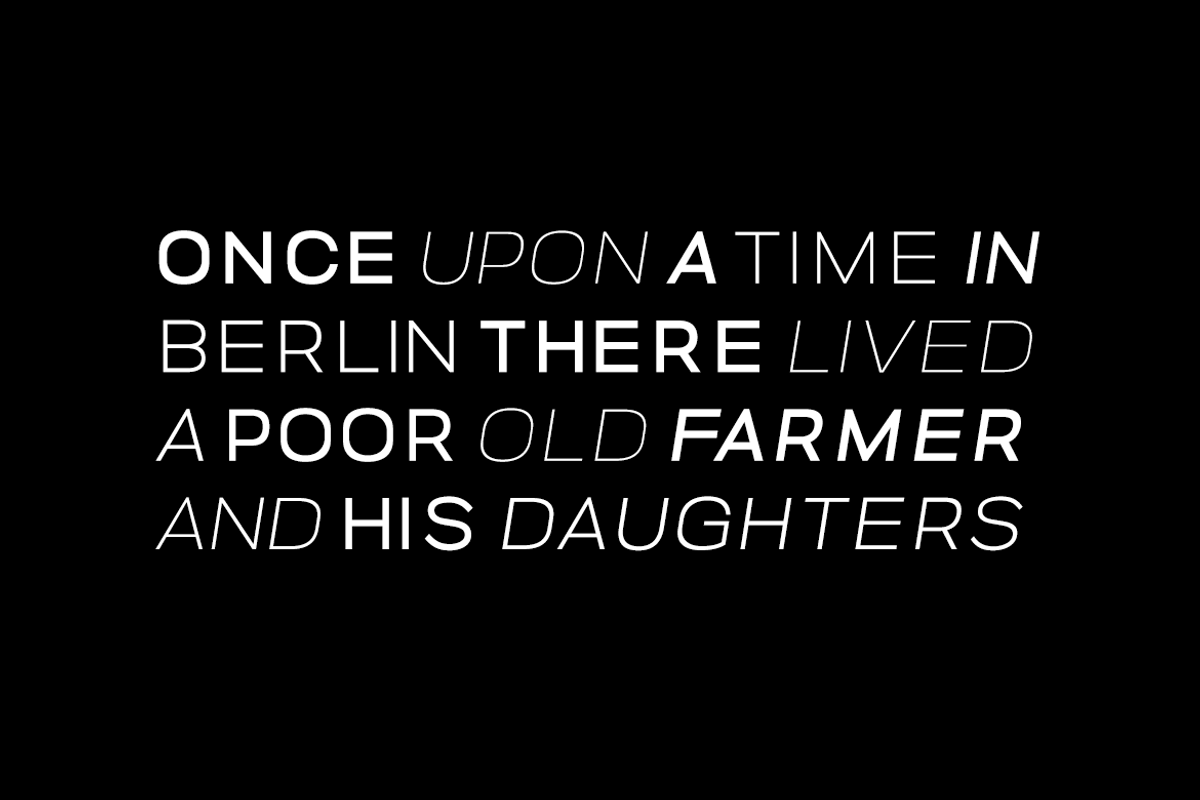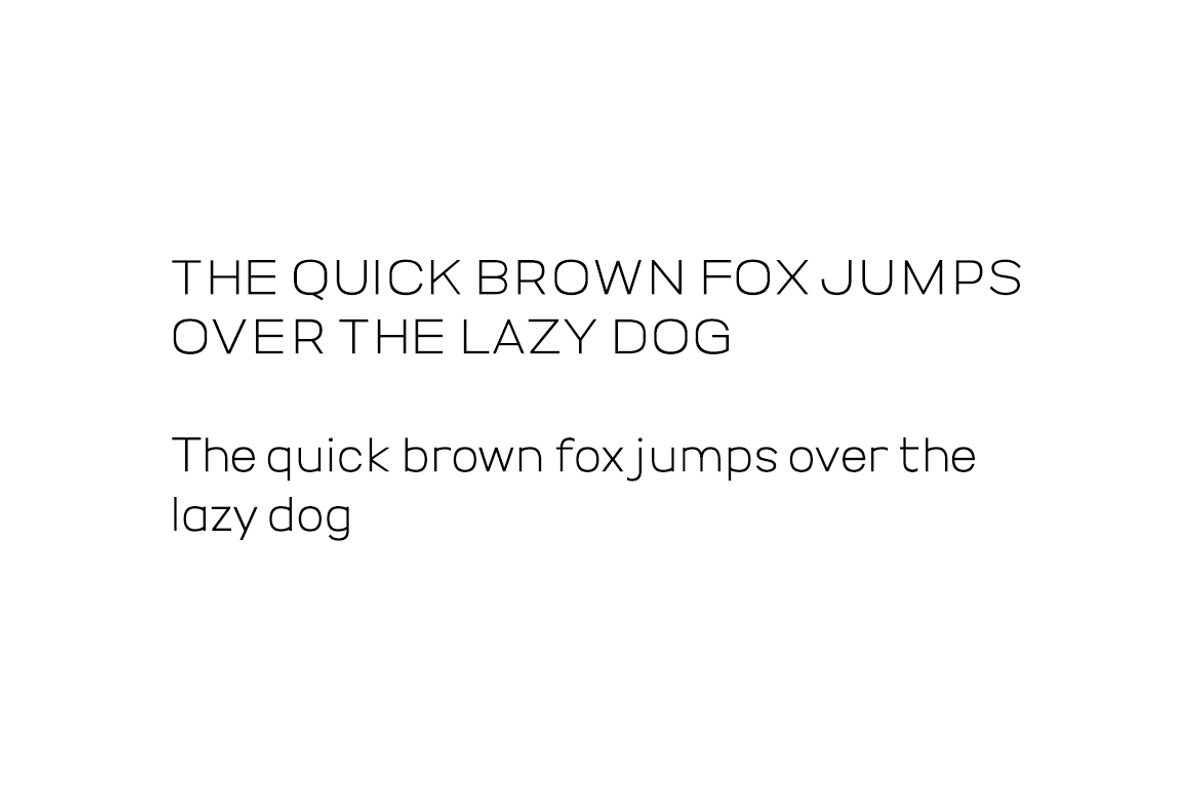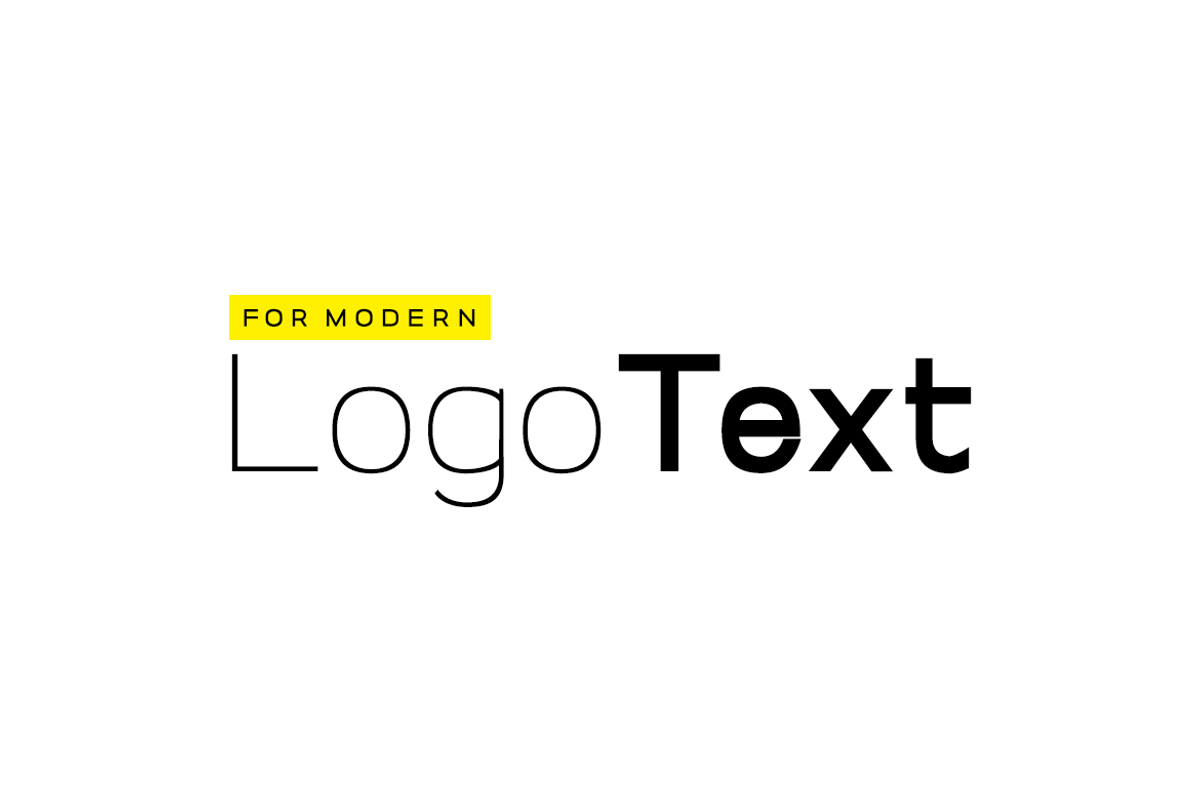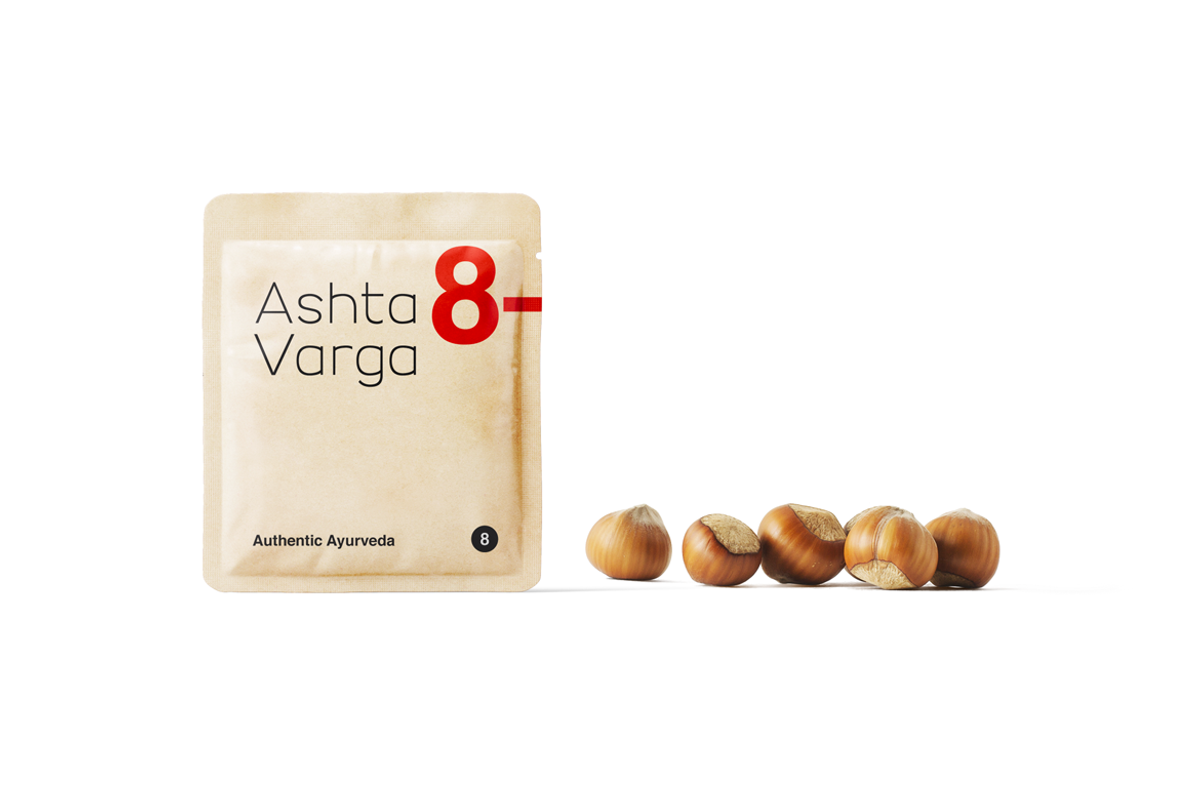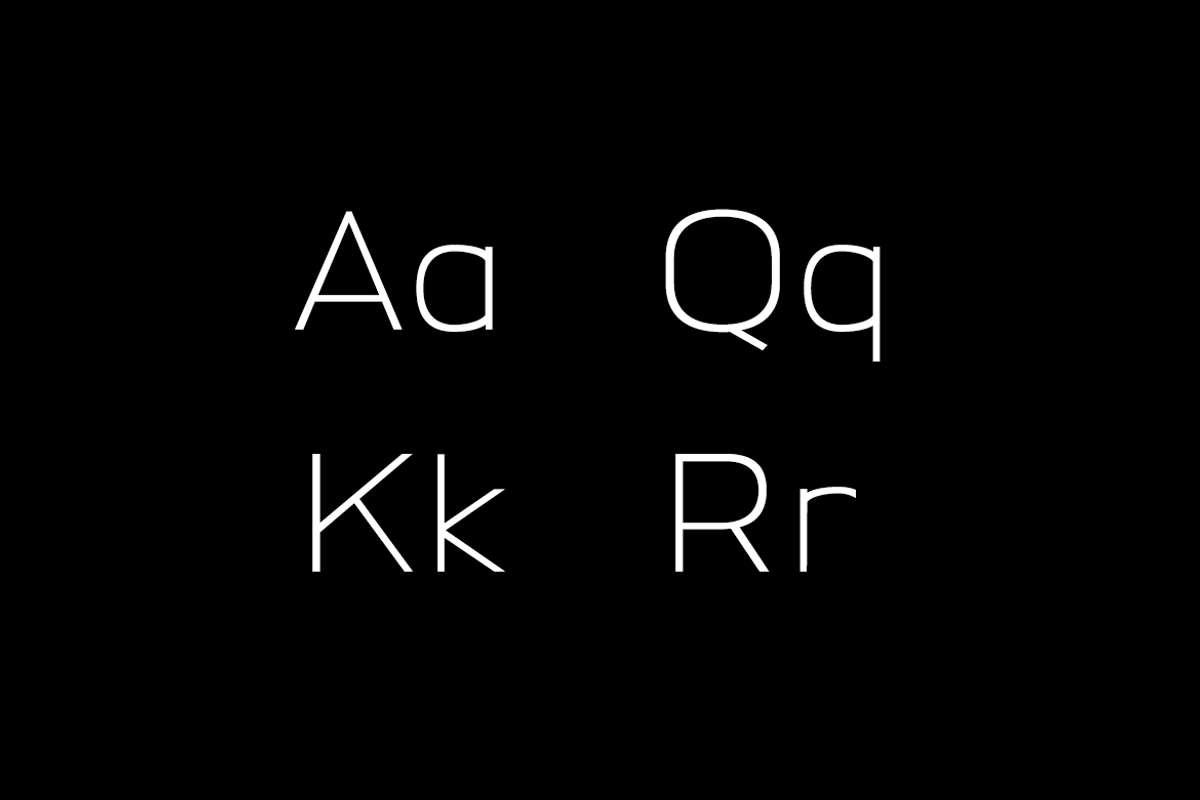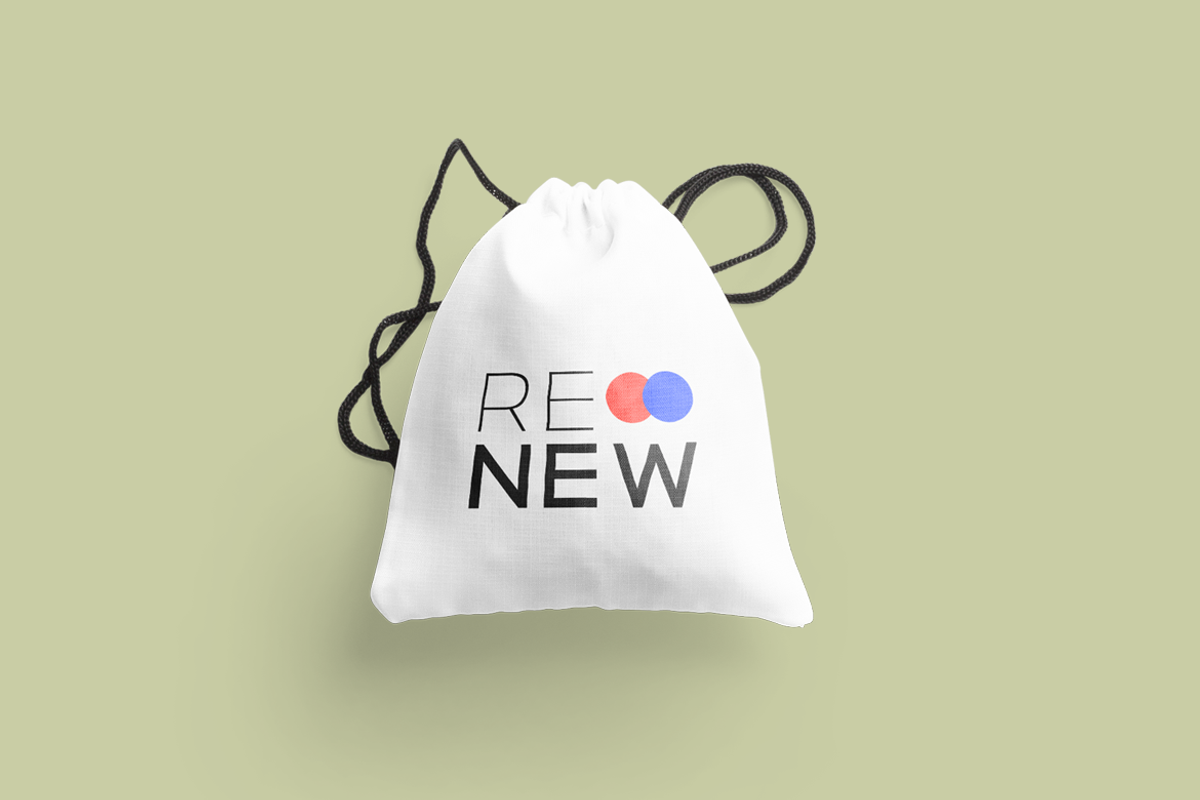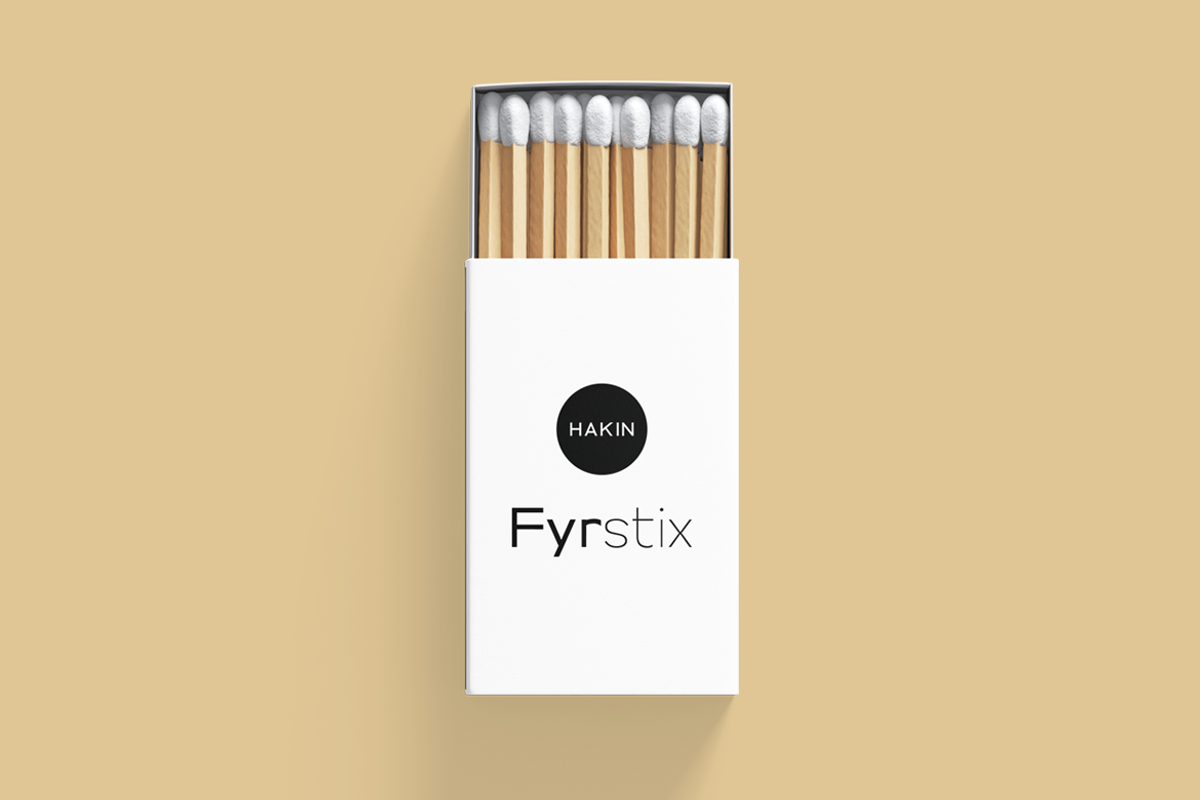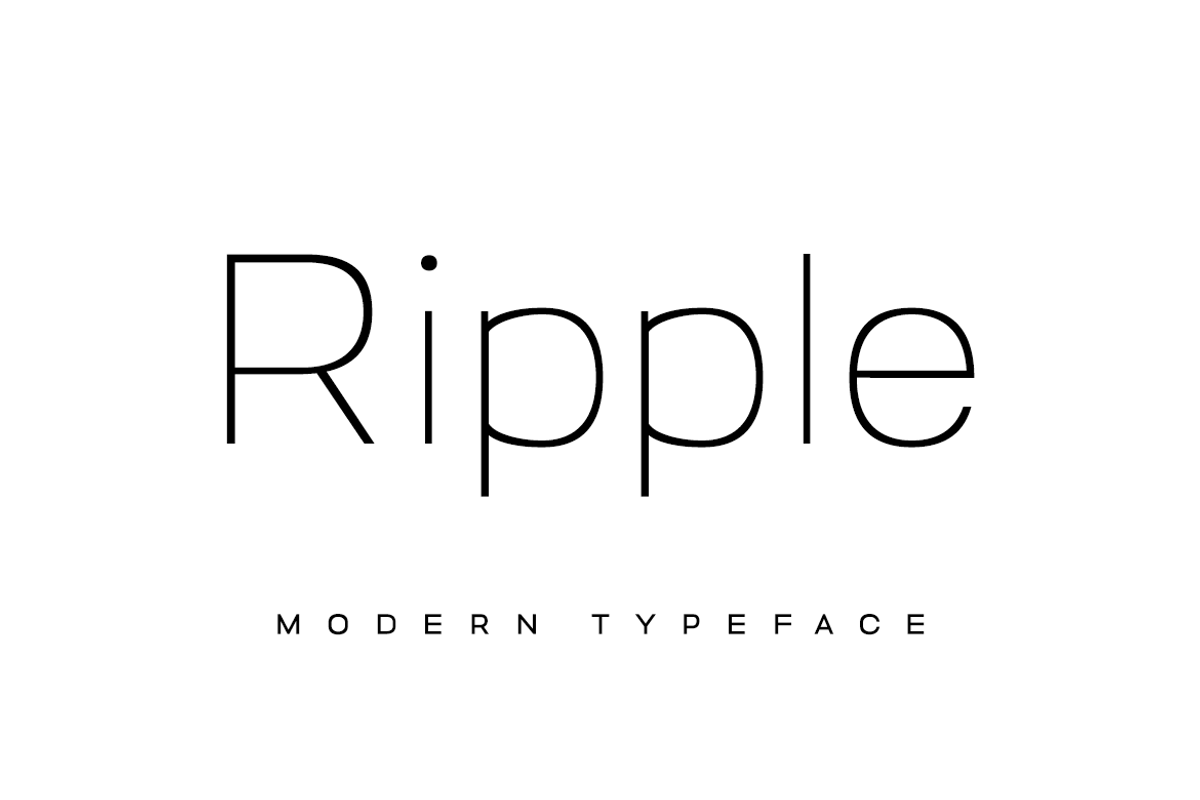
RIPPLE - Minimal & Modern Typeface
RIPPLE is a minimal & modern Sans Serif typeface that will be best suited for creating logotypes, branding, headlines, corporate identities, marketing materials for web & print as well as any type of minimal designs. Please see the included demo graphics to get an idea about the capability of this typeface when used for branding and marketing material design.
RIPPLE typeface comes with 6 weights: THIN / LIGHT / REGULAR / MEDIUM / BOLD / HEAVY as well as Italic versions of all 6 weights. Desktop Font option includes OTF and TTF. Web Fonts option includes EOT, SVG, TTF, WOFF, WOFF2 formats.